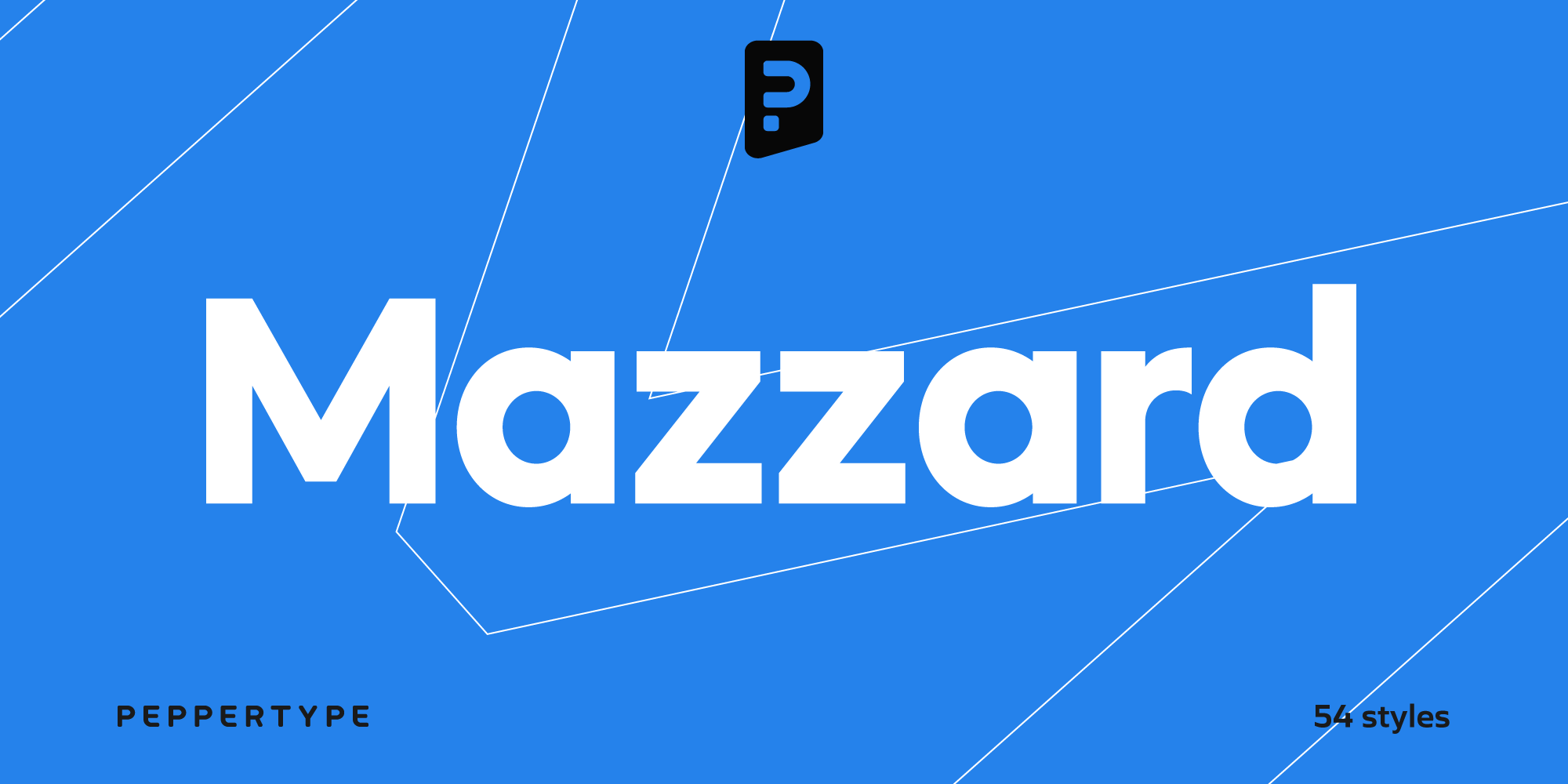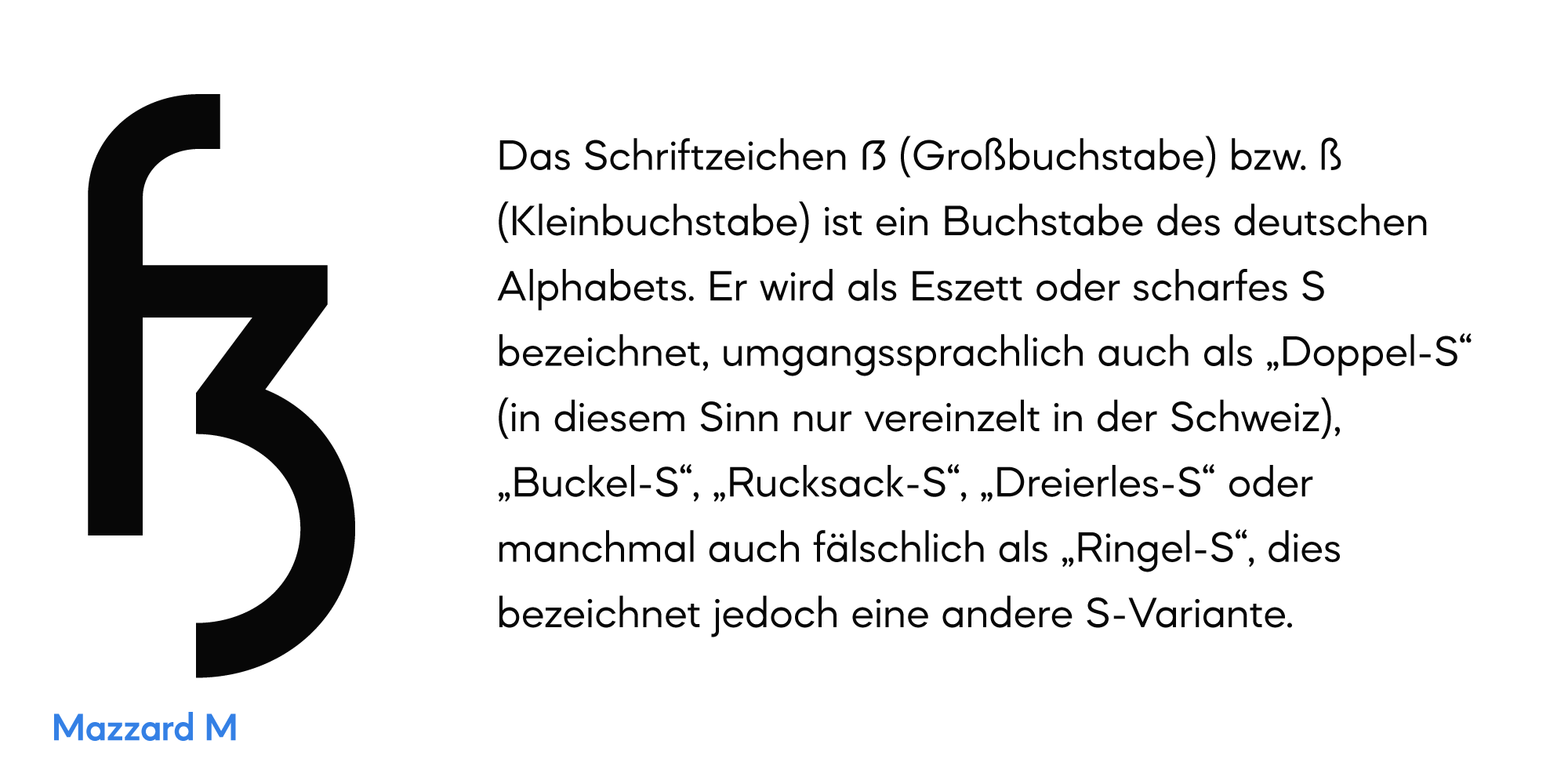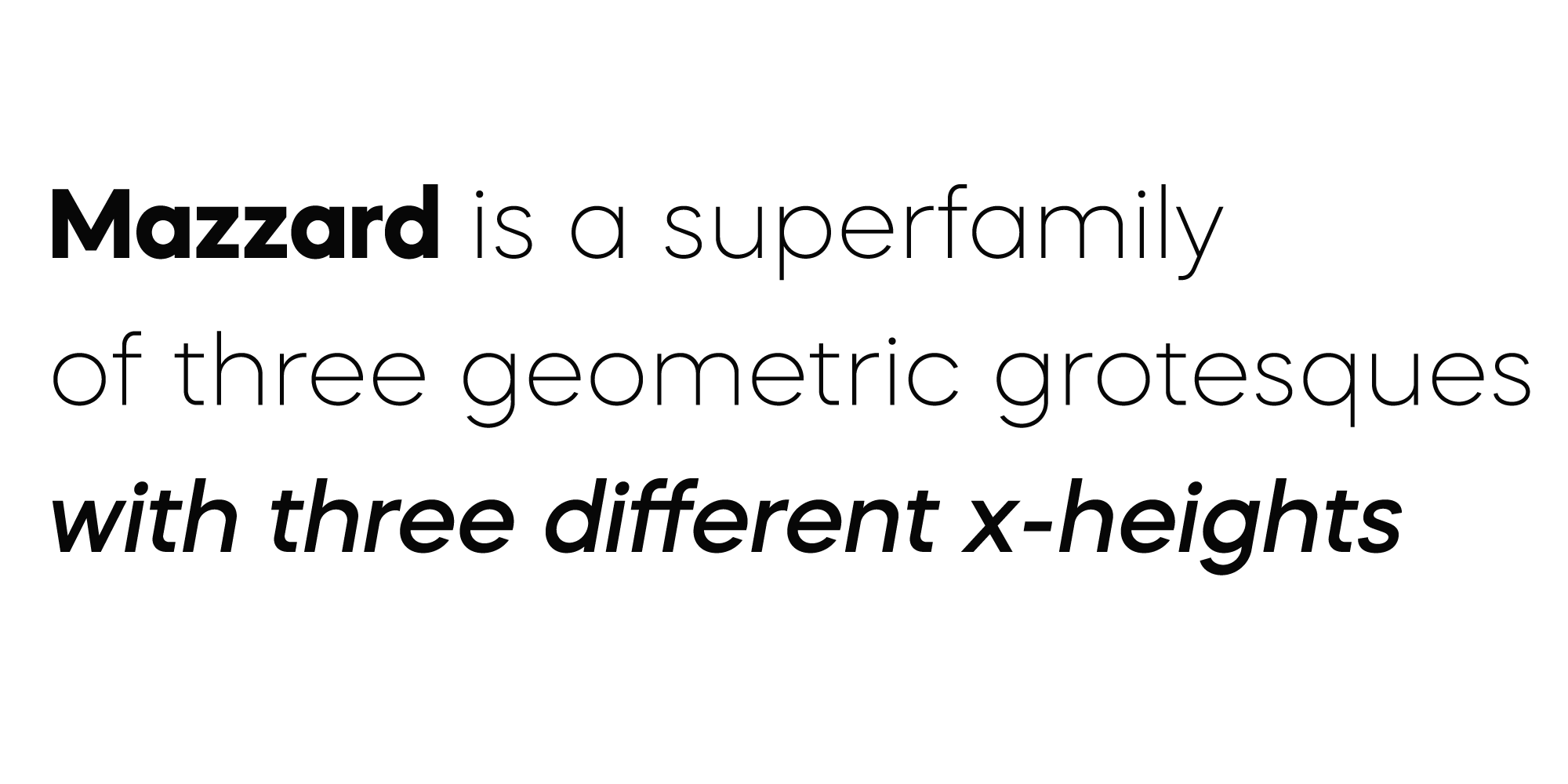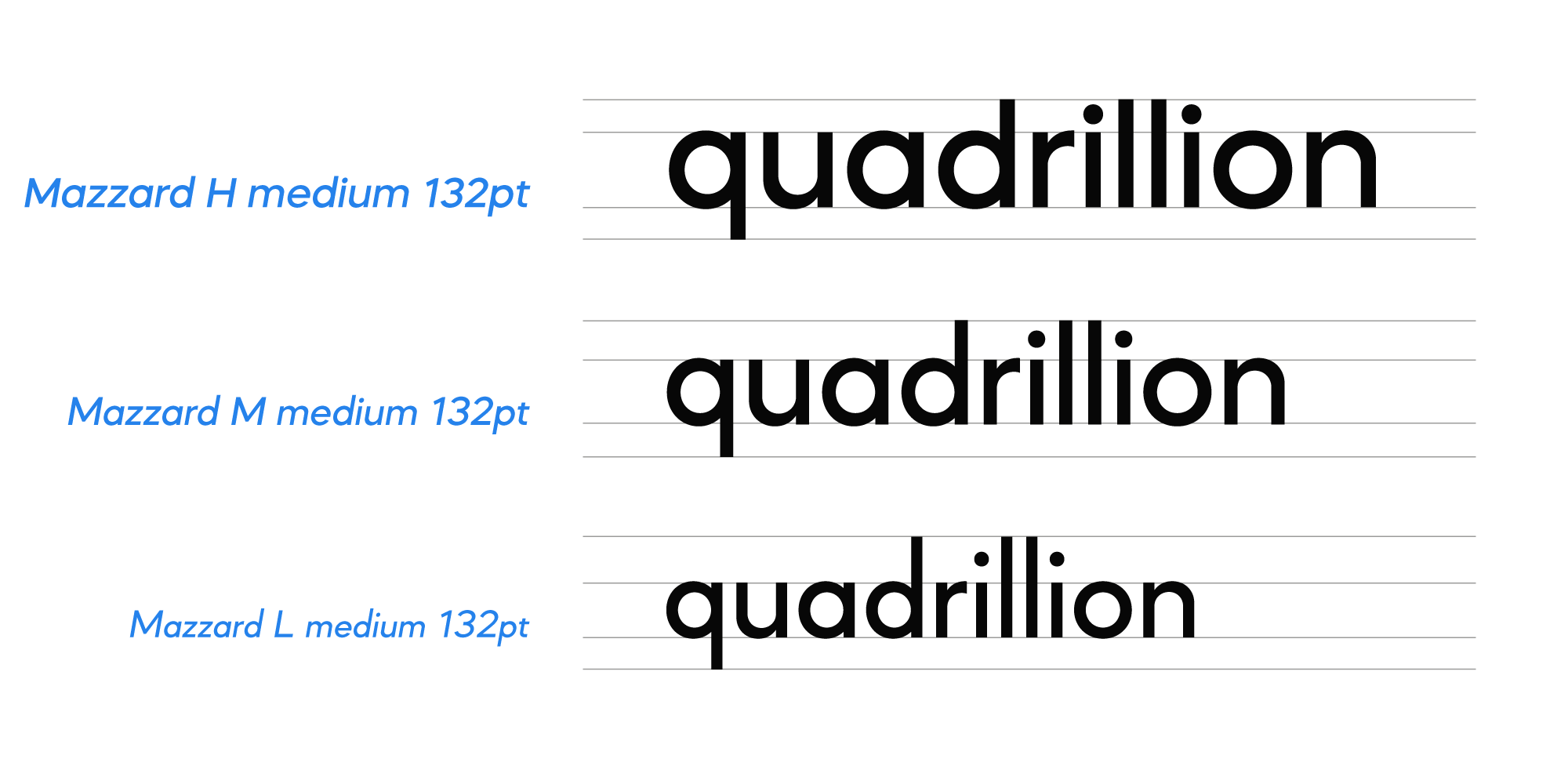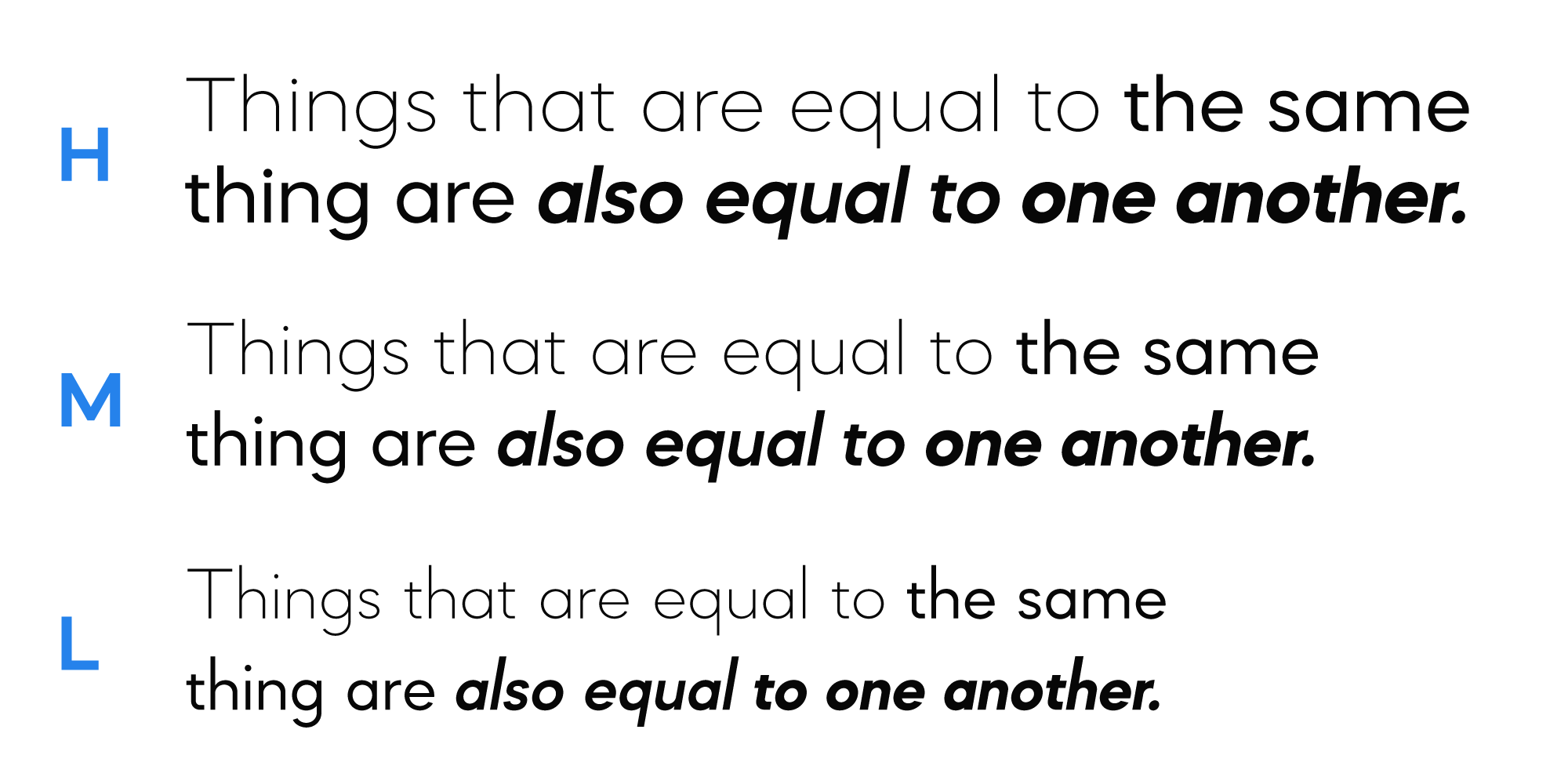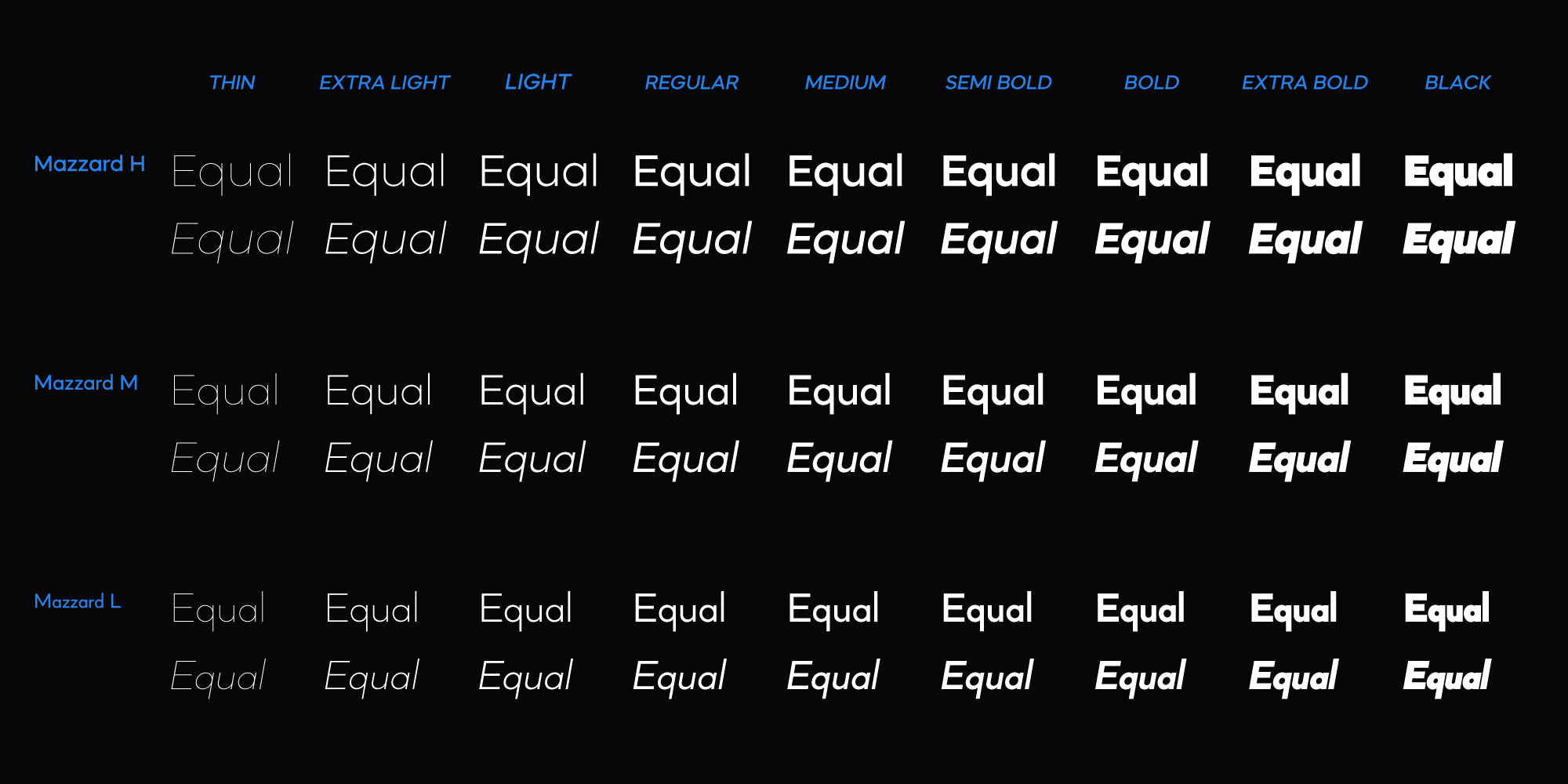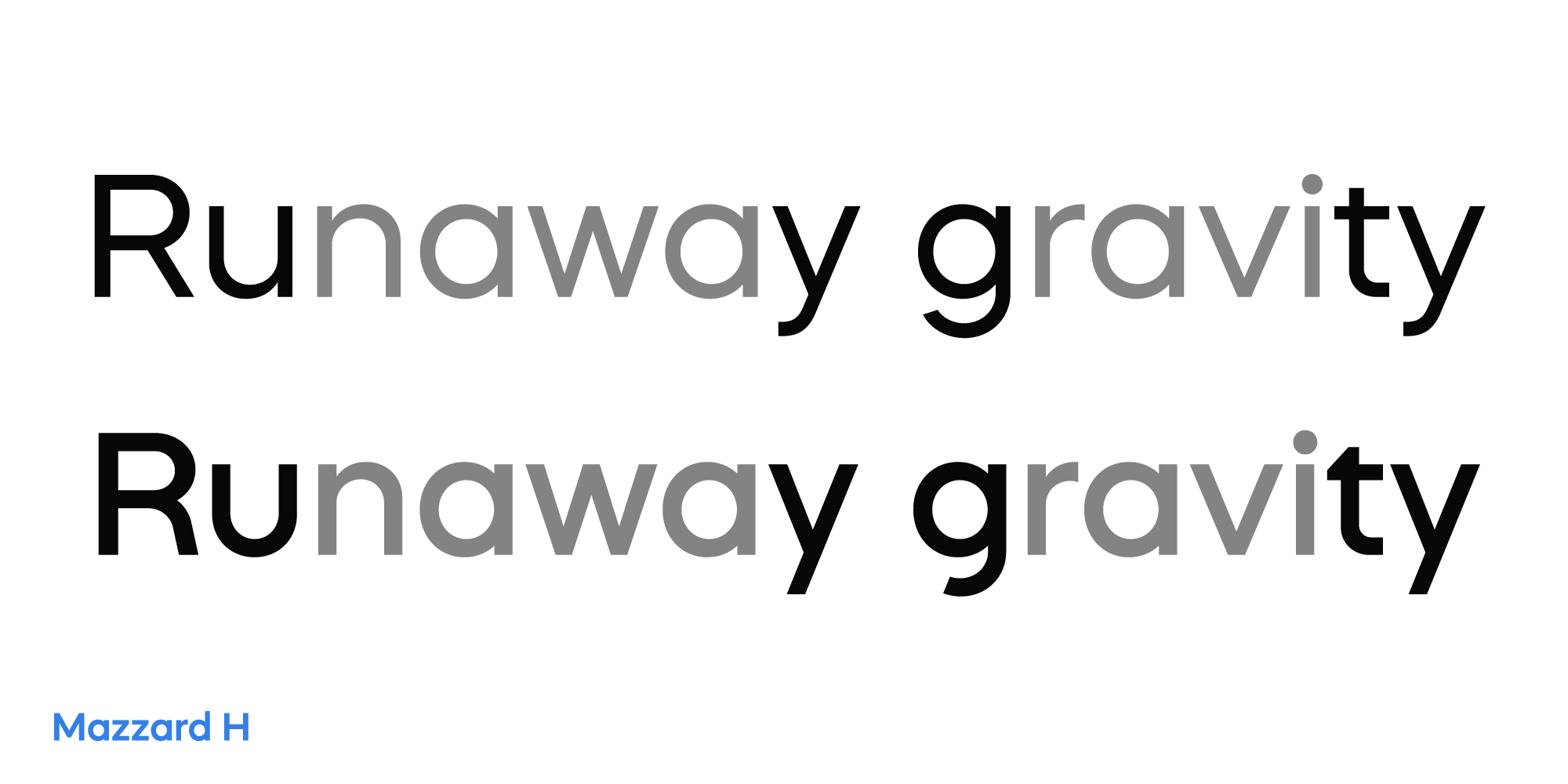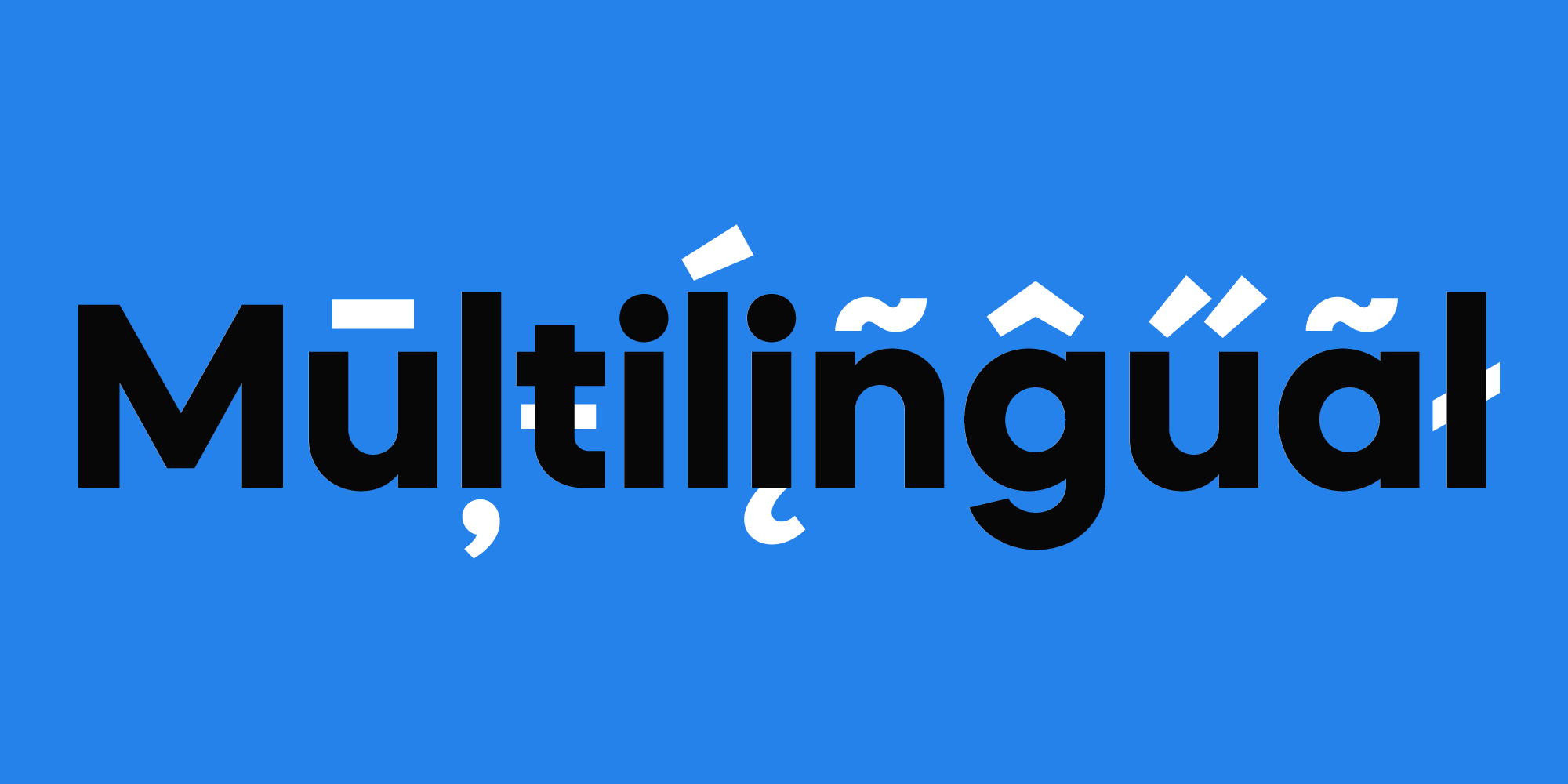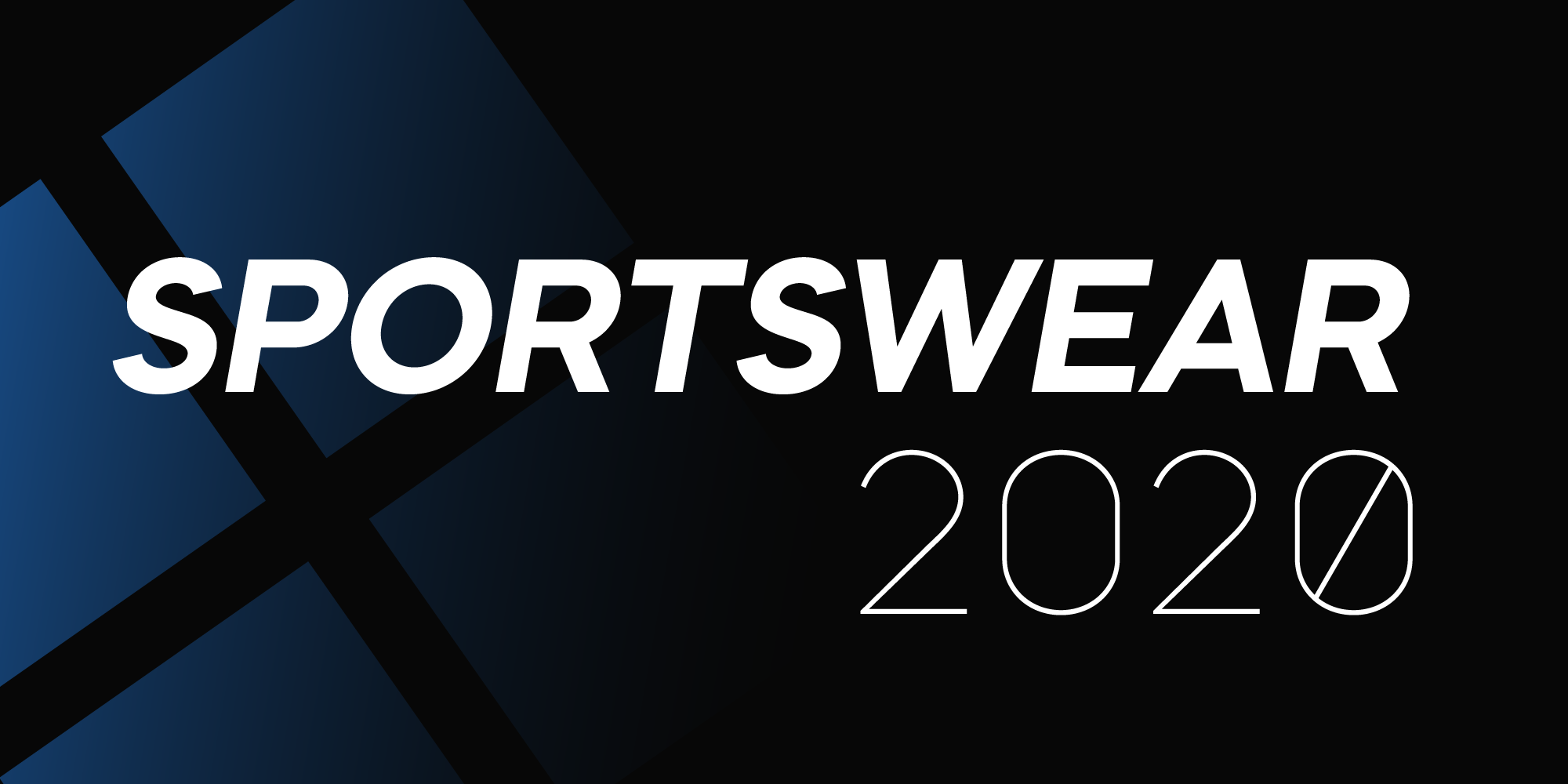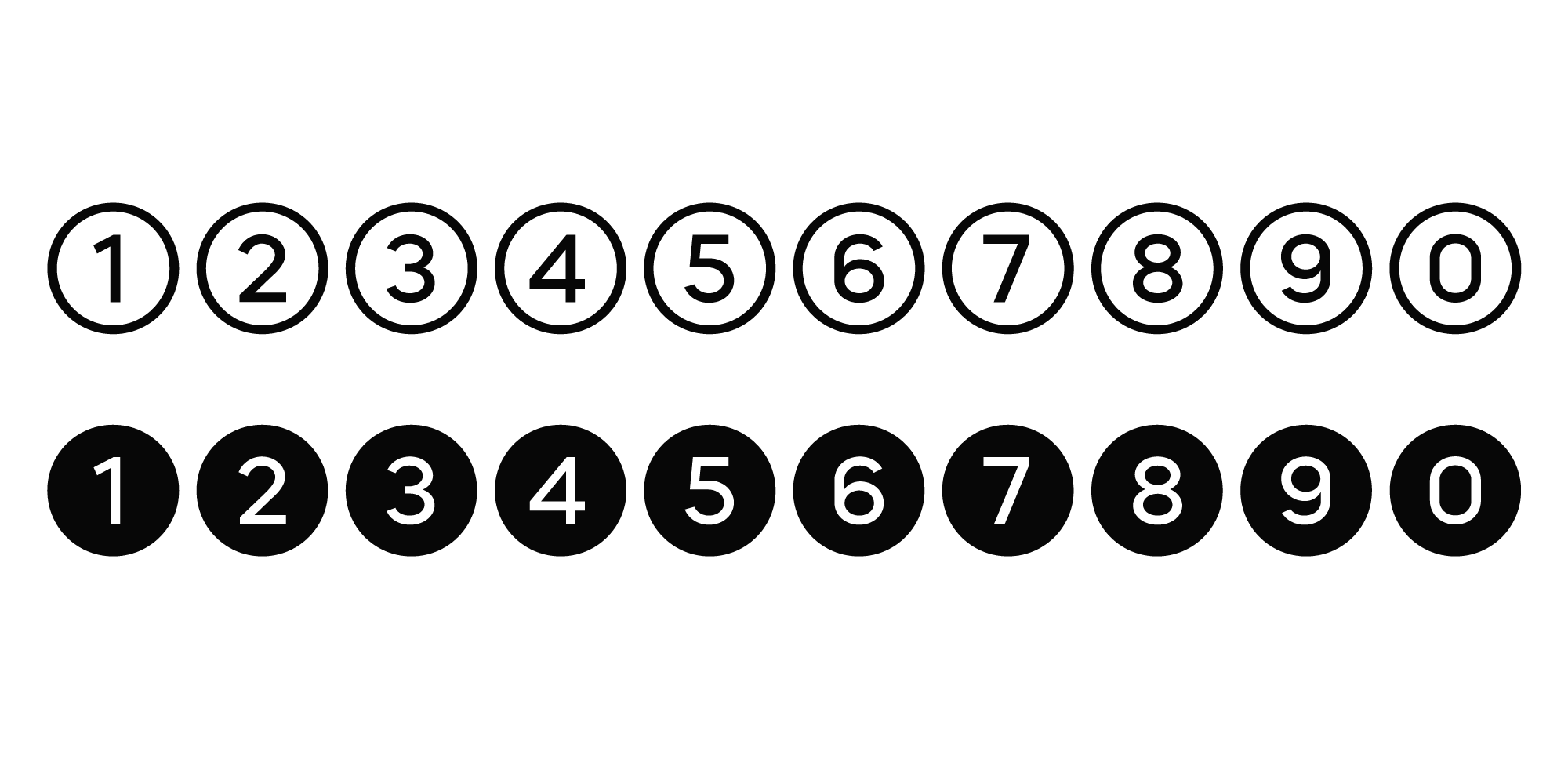
Mazzard Superfamily
Mazzard is a superfamily of three geometric grotesques with three different x-heights (H, M, and L).
It features rich language support including Cyrillic, and offers a wide variety of alternate forms to choose from.
Designed by Oleh Lishchuk